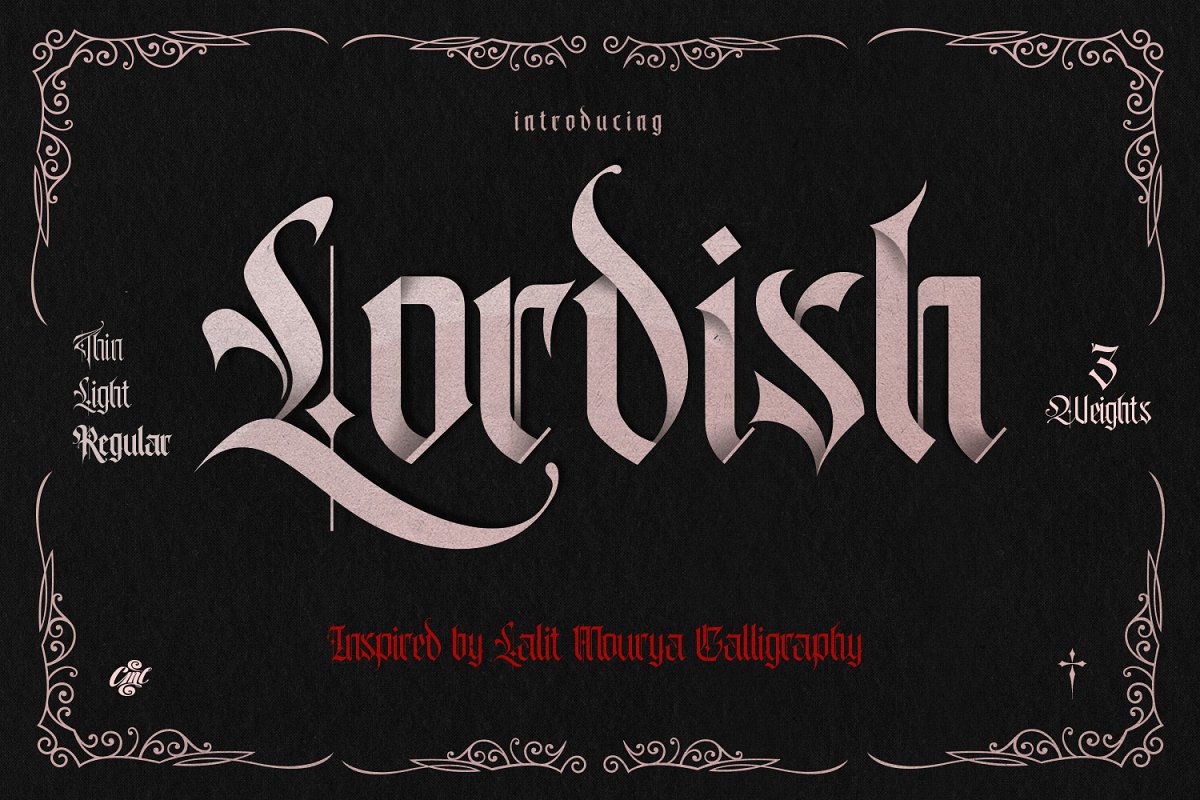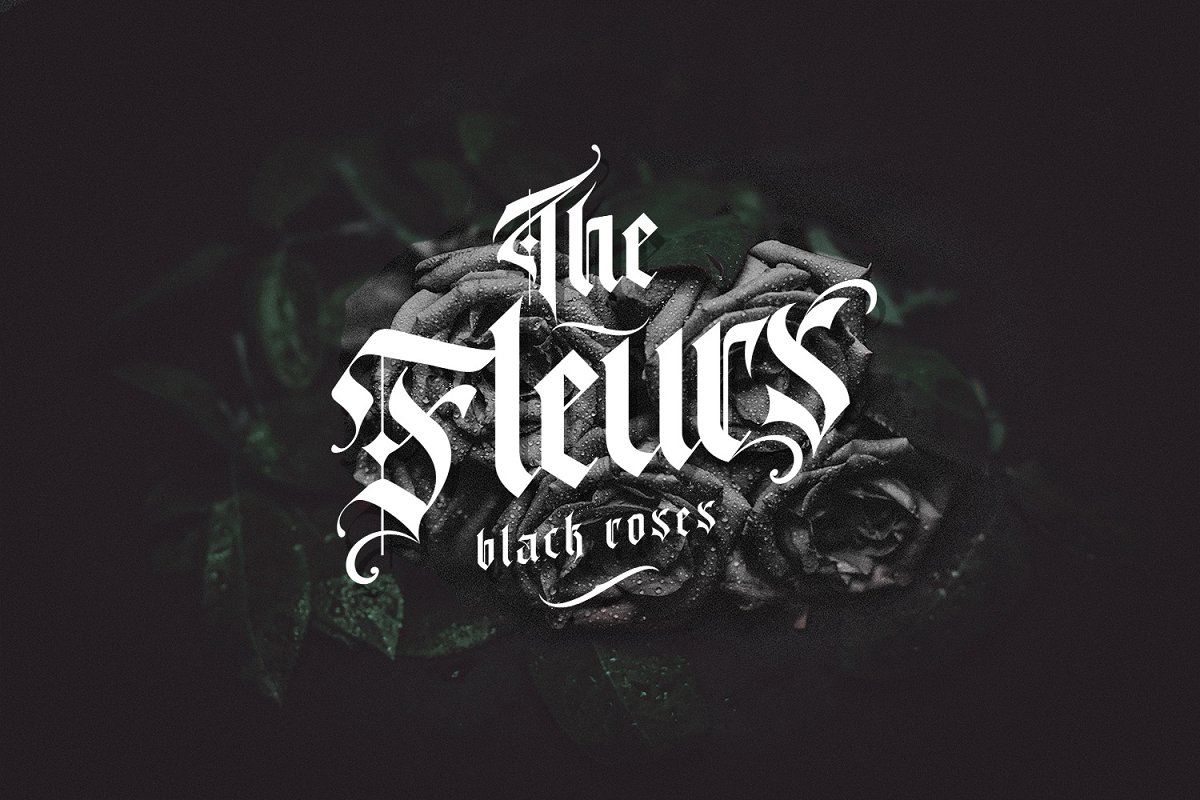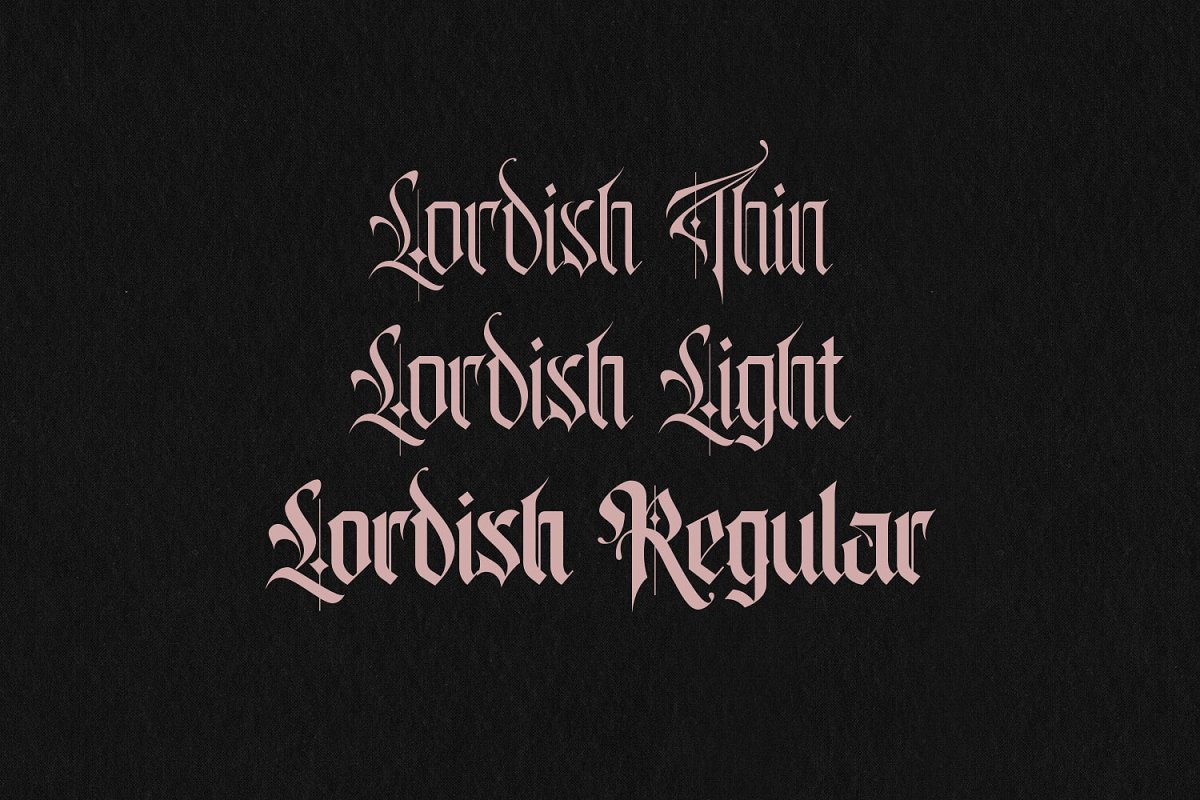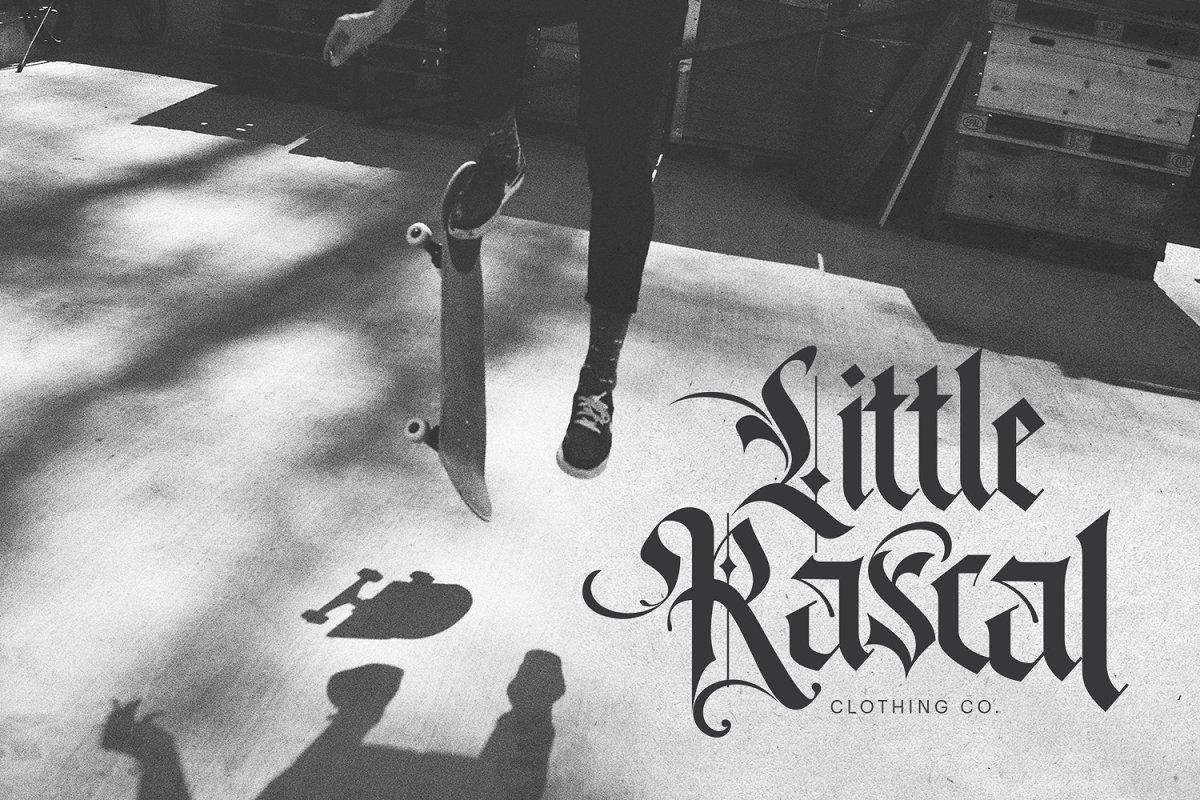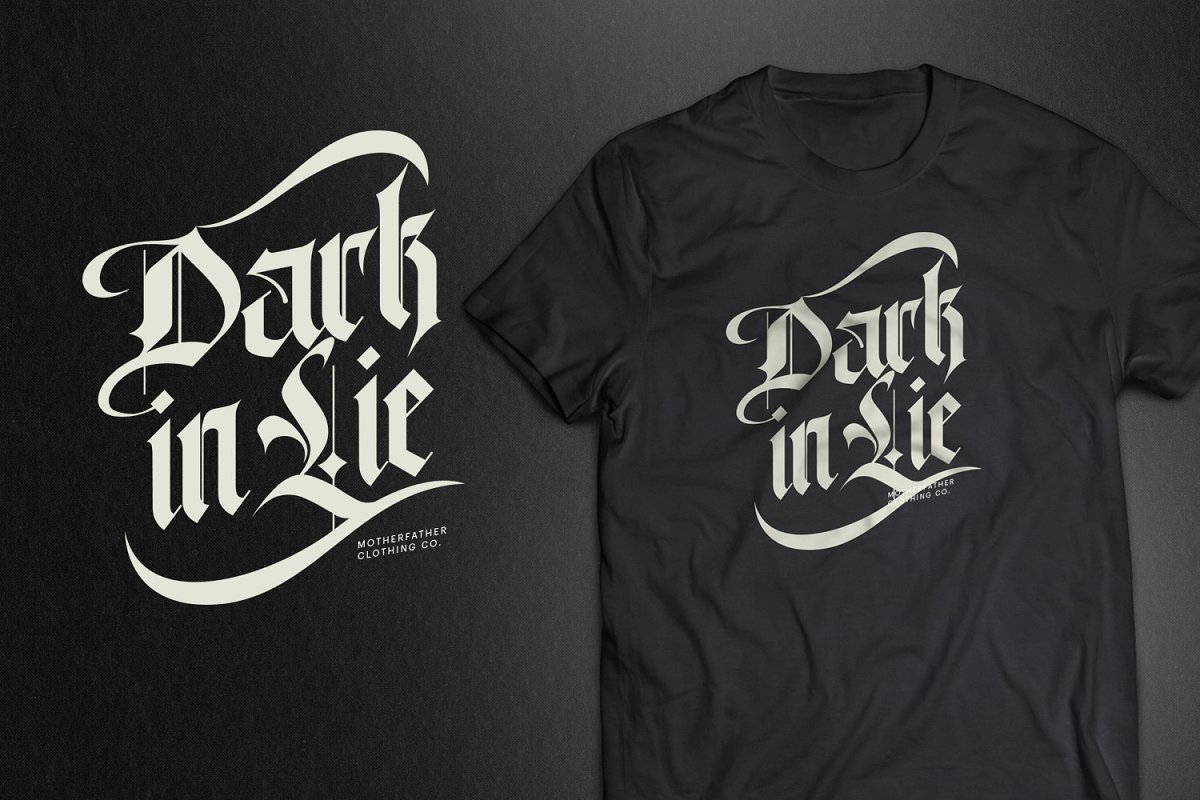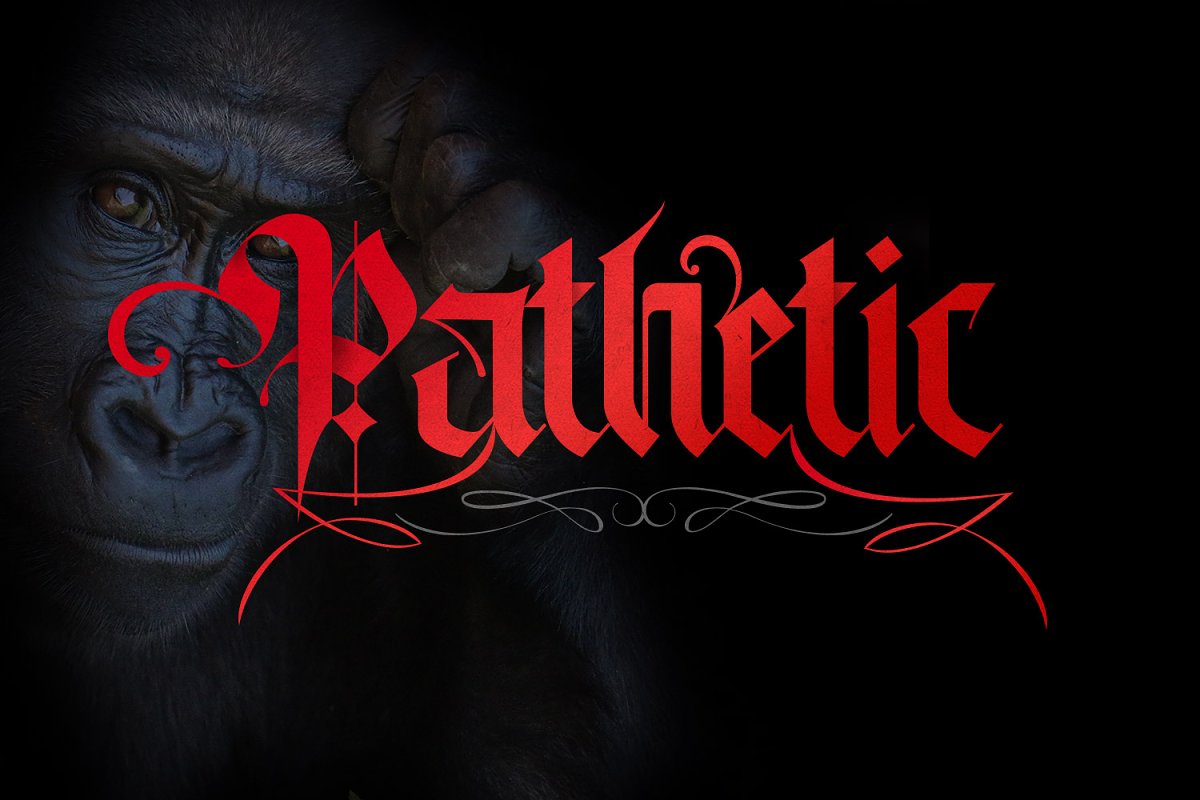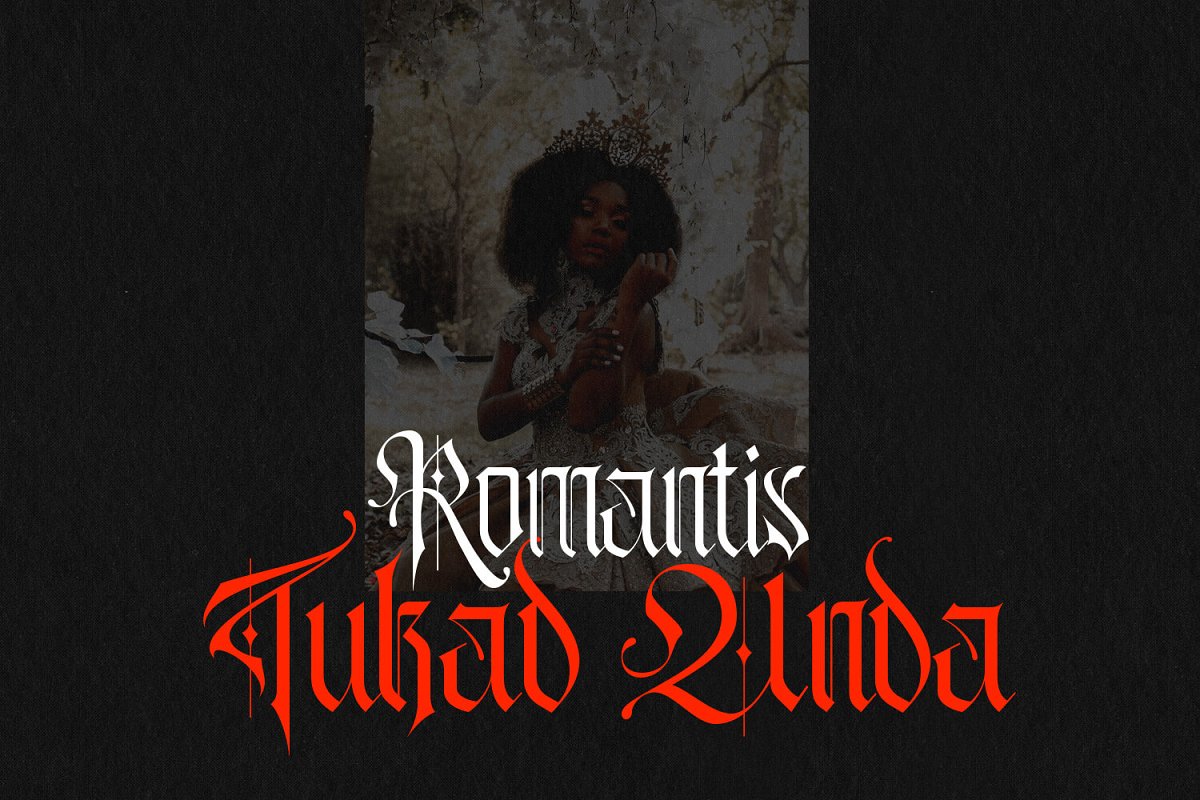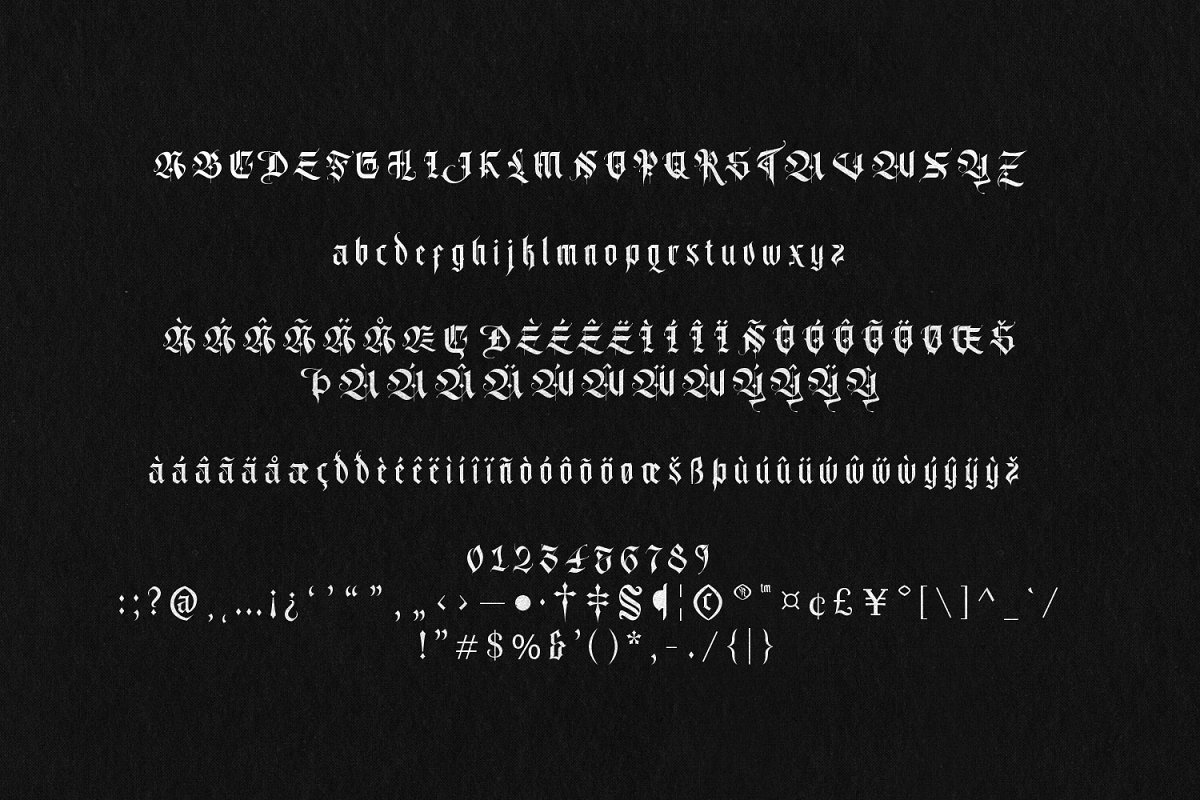
About the Lordish Font
Introducing Lordish Blackletter, a unique blackletter for your design, This Unique blackletter is inspired by the style of Master Calligraphy, Lalit Mourya, About Lalit MauryaAn alumnus of Delhi College of Arts, He has established himself as a practicing calligrapher with more than a decade of experience as an art director and visualizer in the Advertising Industry behind him
His brilliant & novel approach along with a fine grip on his craft makes him one of the best in the calligraphic scene across the country, Lalit has conducted workshops across India, He has worked on several assignments for individual clientele globally
mourya207 or visit his websitehttp://lalitmourya, comLordish consist 3 weights thin, light, and regularIncludes uppercase, lowercase, punctuation, and international characters, Best for display font, tattoo font, or other styles, Bonus ornaments in the download file